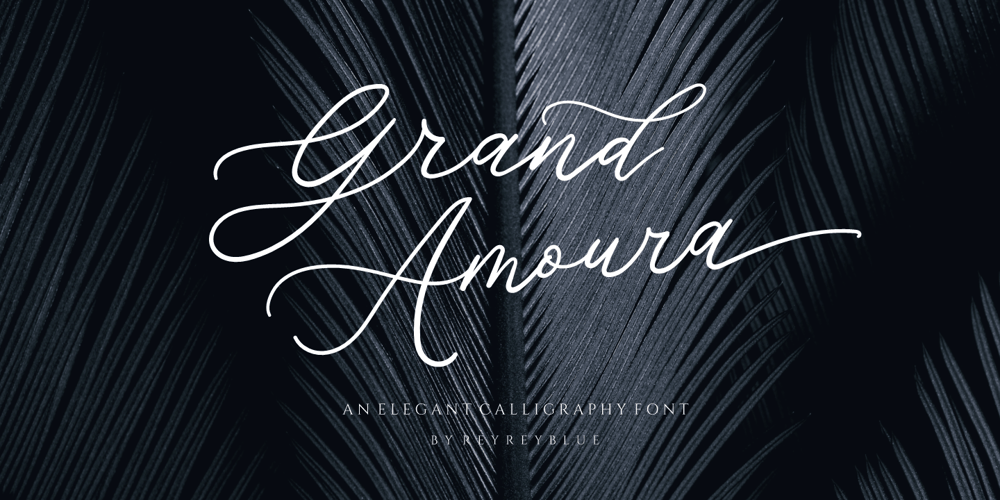
Grand Amoura
Grand Amoura font
Grand Amoura Font Family was designed by Risca Anitawati and published by Reyrey Blue Std. Grand Amoura contains 1 styles and family package options. Grand Amoura is a romantic and smooth handwritten font. It looks stunning on wedding invitations, thank you cards, quotes, greeting cards, logos, business cards and every other design which needs a handwritten touch. Grand Amoura is here to elevate your work to the highest level.Includes: Ligatures Swash